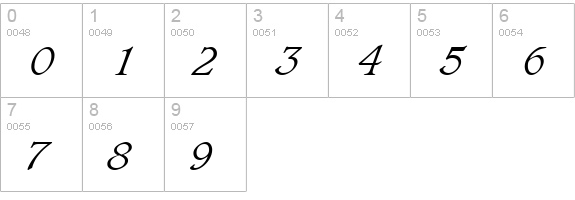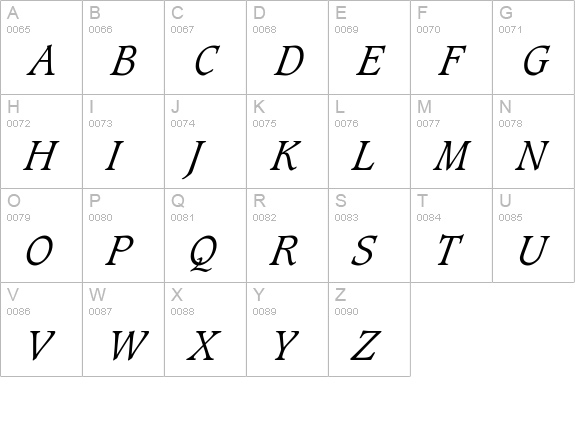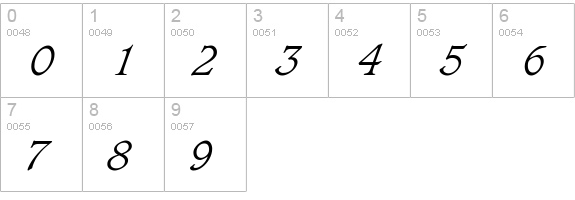
Caxton LT Light Italic Font Details
Caxton LT Light Italic is a refined, elegant, italic variant in the Caxton typeface family \xE2\x80\x94 well suited to elegant body text, refined sub-headings, and luxury branding.
Caxton LT Light Italic font is a modern and elegant typeface that exudes sophistication and grace. Its slender and slanted design adds a touch of style to any project, making it perfect for use in editorial design, branding, and more. The light weight of this font gives it a delicate and refined appearance, while the italic style adds a touch of flair and personality. The Caxton LT Light Italic font is not only visually appealing but also highly versatile, making it suitable for various design applications. Whether you're working on a magazine layout, website design, or logo creation, this font will elevate your project to the next level. Best of all, the Caxton LT Light Italic font is available for free download at FontsMarket.com. This means you can easily access this beautiful typeface and start using it in your designs without any cost. Don't miss out on this opportunity to enhance your projects with the timeless elegance of the Caxton LT Light Italic font.